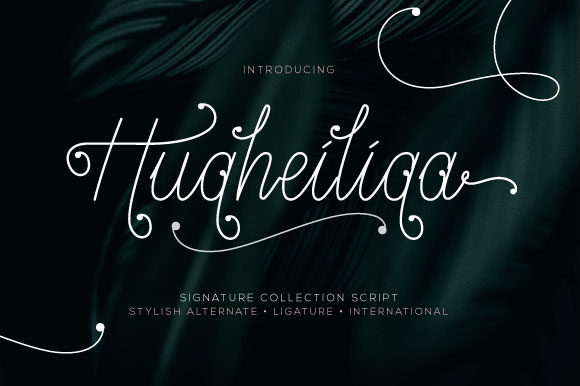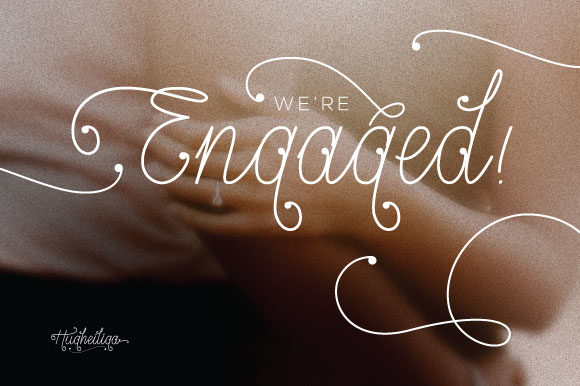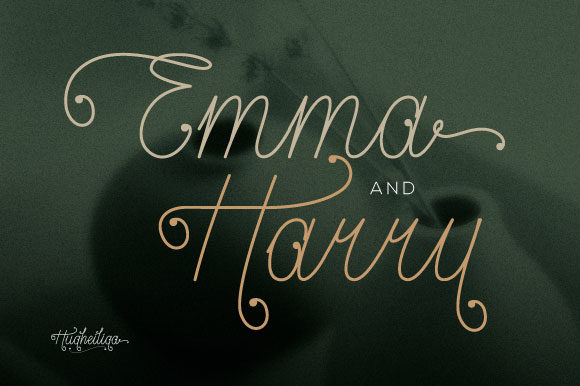
Hugheiliga Font
Introducing “Hugheiliga,” a delicate and elegant handwritten font that exudes a sense of grace and sophistication. Its flowing and well-balanced characters make it a versatile choice for a wide range of design projects, elevating them to new heights of beauty and creativity.
With “Hugheiliga,” your creative ideas will truly come alive as this font adds a touch of charm and allure to your designs. Whether you’re working on wedding invitations, thank you cards, quotes, greeting cards, logos, business cards, or any other project that requires a handwritten touch, “Hugheiliga” will captivate your audience with its timeless beauty.
The font’s PUA encoding makes it incredibly user-friendly, allowing you to access all of the glyphs and swashes with ease. This opens up a world of design possibilities, empowering you to craft unique and stunning text compositions effortlessly.
The varying baseline of “Hugheiliga” captures the natural flow of handwriting, lending an organic and authentic feel to your designs. Its smooth lines and gorgeous glyphs enhance its elegance, ensuring that your text stands out with a touch of refinement.
But what truly sets “Hugheiliga” apart are its stunning alternates. With these alternate characters, you have the freedom to experiment and create custom letterforms, infusing your designs with a personal touch. This level of customization ensures that your work remains distinct and memorable.
For wedding invitations, “Hugheiliga” sets the stage for a romantic and sophisticated celebration. In thank you cards, it conveys heartfelt appreciation with its graceful strokes. For quotes and greeting cards, it imparts a sense of elegance and warmth.
When used in logos and business cards, “Hugheiliga” creates a brand identity that is both captivating and professional. From personal projects to commercial endeavors, this font brings a touch of elegance to every design it graces.
With “Hugheiliga” as part of your creative toolkit, you’ll discover a font that not only matches a wide pool of designs but also breathes life into each of them. Embrace its delicate and flowing style, and witness how it transforms your ideas into true works of art. Let “Hugheiliga” be your go-to font for projects that demand an elegant and handwritten touch, leaving a lasting impression on your audience.